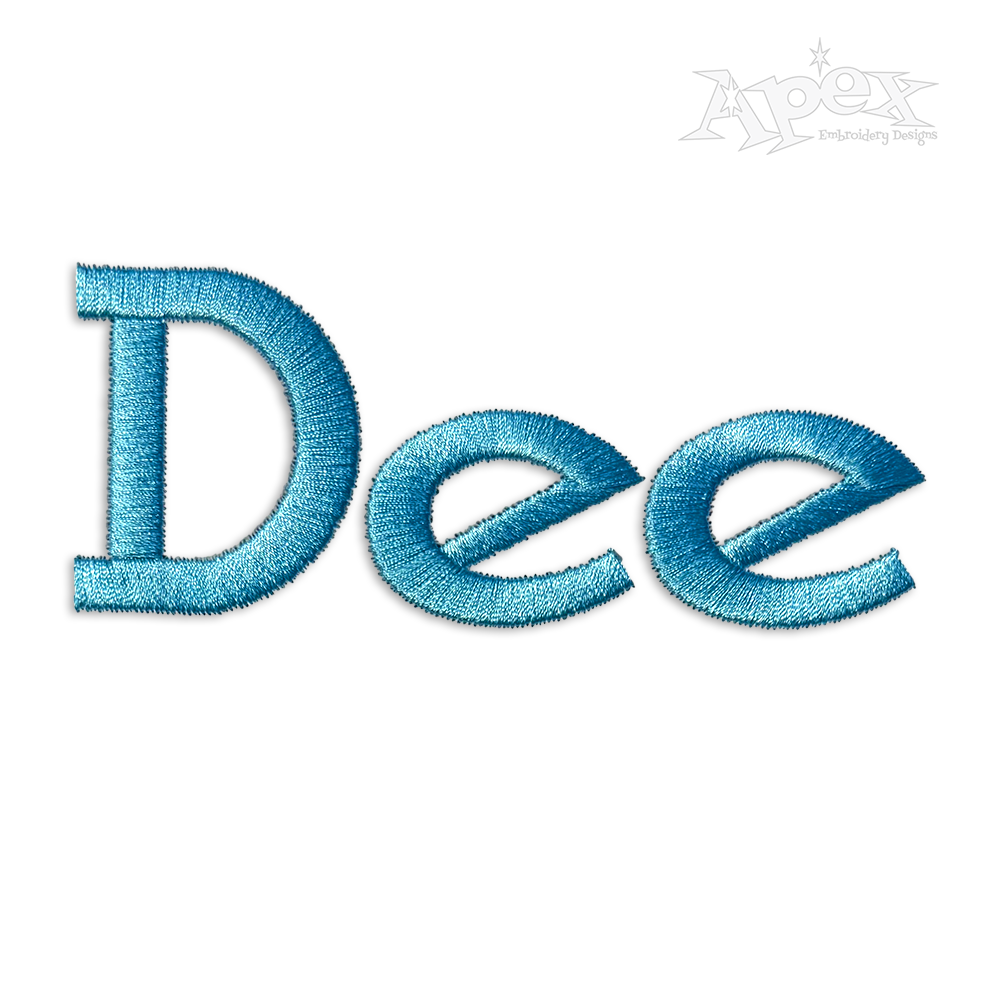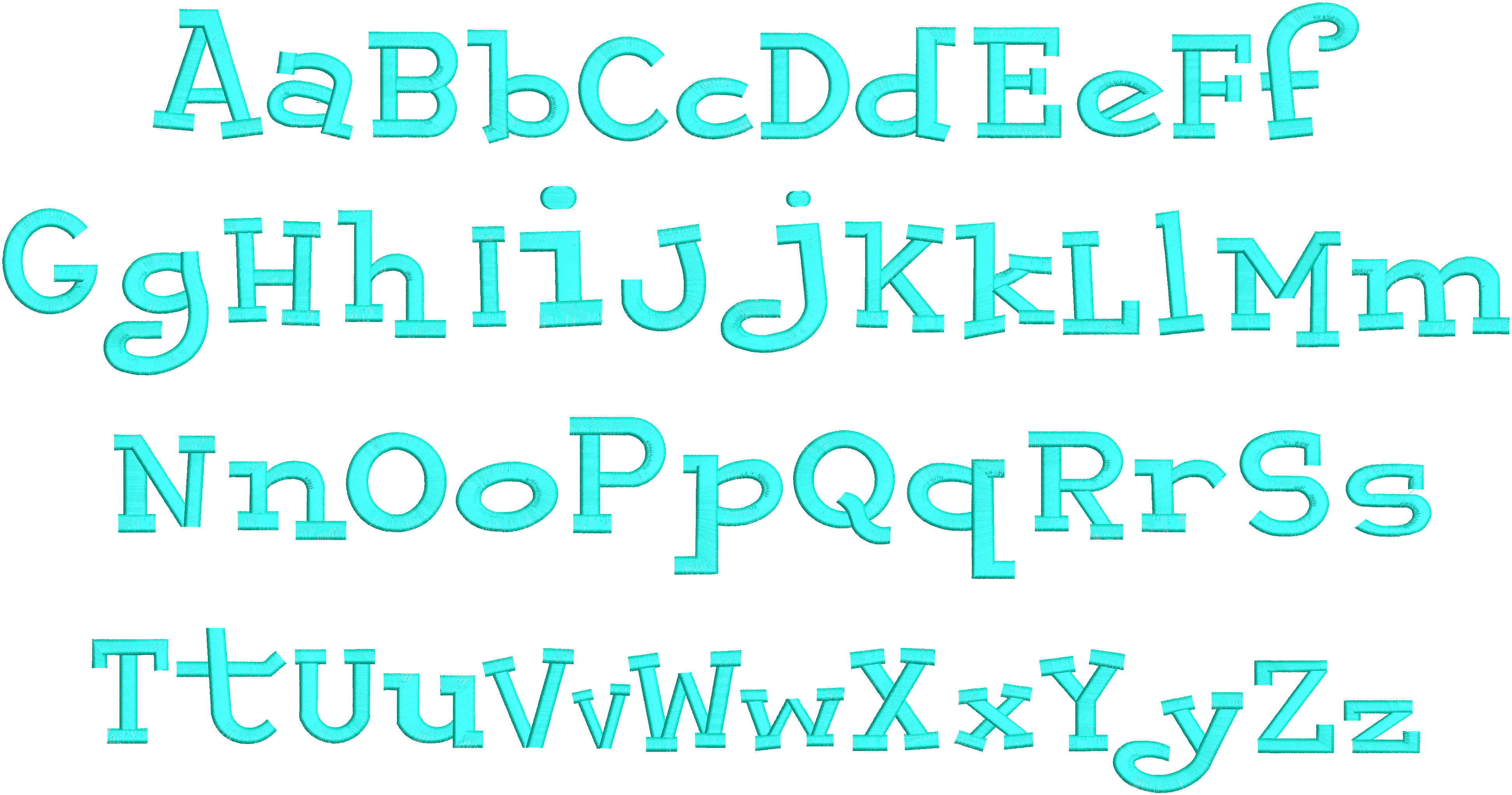
Malihini Embroidery Font
Inspired by the gracious warmth of island hospitality and the sun-drenched rhythm of coastal retreats, Malihini was digitized to bring an air of relaxed sophistication to your needlework. In the studio, our vision was to translate the effortless grace of gentle breezes into structural, stitch-perfect typography. Every letterform captures a harmonious balance between organic movement and tailored refinement, turning thread into a rich statement of welcoming elegance. Whether you are personalizing breezy linens for a seaside cottage or curating bespoke accents for summer gatherings, Malihini lends an understated luxury that feels both transportive and timelessly handcrafted.
Project Ideas for Malihini
The distinctive, breezy character of Malihini makes it exceptionally suited for projects celebrating hospitality, relaxation, and bespoke gifting:
- Luxury Table Linens: Elevate hemstitch cocktail napkins, fringed placemats, and crisp table runners for al fresco dinner parties and coastal dining.
- Bespoke Resort Wear: Embroider relaxed initials onto breezy linen camp shirts, flowing caftans, swimwear cover-ups, and sun hats.
- Destination Bridal & Honeymoon Gifting: Personalize silk kimono robes, beach cover-ups, and weekend getaway pouches for a romantic tropical aesthetic.
- Guest Suite Linens: Embellish plush waffle-weave bath sheets, guest hand towels, and crisp percale pillowcases with a gracious welcoming motif.
- Canvas Beach Totes & Accessories: Stitch striking 4-inch monograms across durable boat totes, zip clutches, and travel gear for sunny adventures.
Proper motif placement allows the natural rhythm of Malihini’s letterforms to shine effortlessly across different textiles:
- Corner Diagonal: Angle initials at 45 degrees, set 1.5 to 2 inches from the corner hem on cocktail napkins and fine dinner linens, allowing the sweeping letterforms to frame the textile naturally.
- Left Chest & Pocket: Position a 2-inch or 3-inch initial centered roughly 7 to 9 inches down from the shoulder seam on linen shirts, light jackets, and spa robes for a classic, bespoke finish.
- Sleeve Cuff: Stitch a subtle 2-inch lowercase or uppercase letter aligned parallel to the edge of a French cuff or tailored linen sleeve for an exquisite bespoke signature.
- Center Focal: Feature the 4-inch size centered on beach totes, bed shams, or decorative throw cushions to let the expressive silhouettes command the space.
Malihini Craft & Letterform Details
Digitizing a font with organic flair requires an artist's touch and rigorous technical engineering. The Malihini embroidery font features carefully sculpted satin stitch columns that glide gracefully through varied widths, mimicking the natural flow of hand-drawn calligraphy while maintaining structural integrity in the hoop.
Special attention was poured into the travel paths and underlay foundations. Each character is fortified with balanced edge-run and zig-zag underlay, creating a stable, lifted cushion that keeps the topstitching buoyant and smooth—even on textured fabrics like heavy linen, pique, and waffle weaves. By thoughtfully calibrating stitch angles to catch the light at every transition, Malihini transforms simple rayon or poly thread into a gleaming, tactile work of art that feels as delightful to touch as it is to behold.